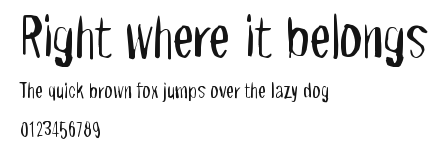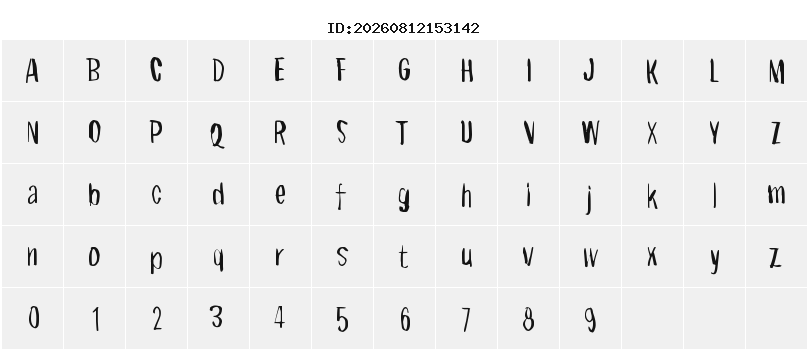
• Font Name: Right where it belongs
• Full Font Name: Right where it belongs
• Version: Version 1.00 February 27, 2016, initial release
Right where it belongs.ttf is a modern, elegant sans-serif font designed for ultimate readability and visual harmony. Perfect for branding, headlines, web design, and print materials.